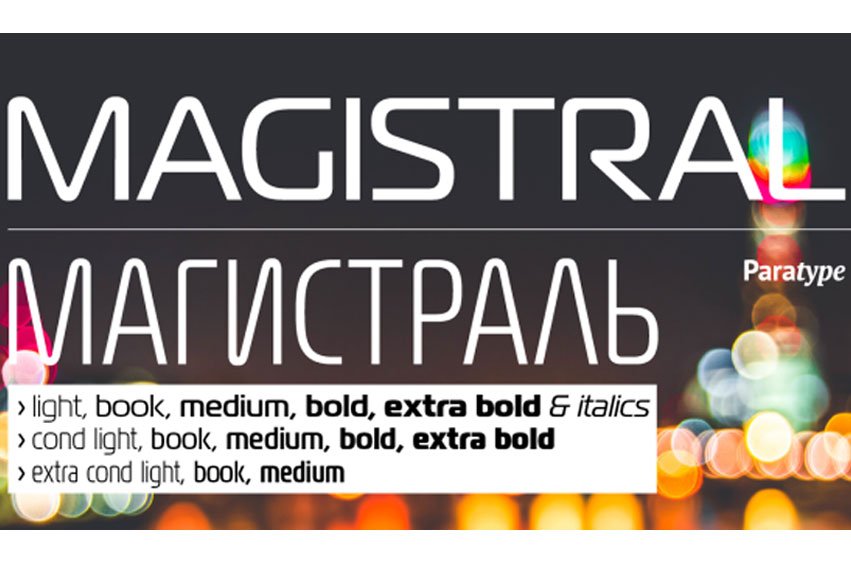
Magistral Font developed by ParaType. Authors: Andrey Kryukov and Dmitry Kirsanov.
Some font features:
supports Cyrillic and Latin letters;
belongs to the sans-serif category;
available in different styles: Light, Light Italic, Book, Book Italic, Medium, Medium Italic, ExtraBold, ExtraBold Italic, Bold, Bold Italic.